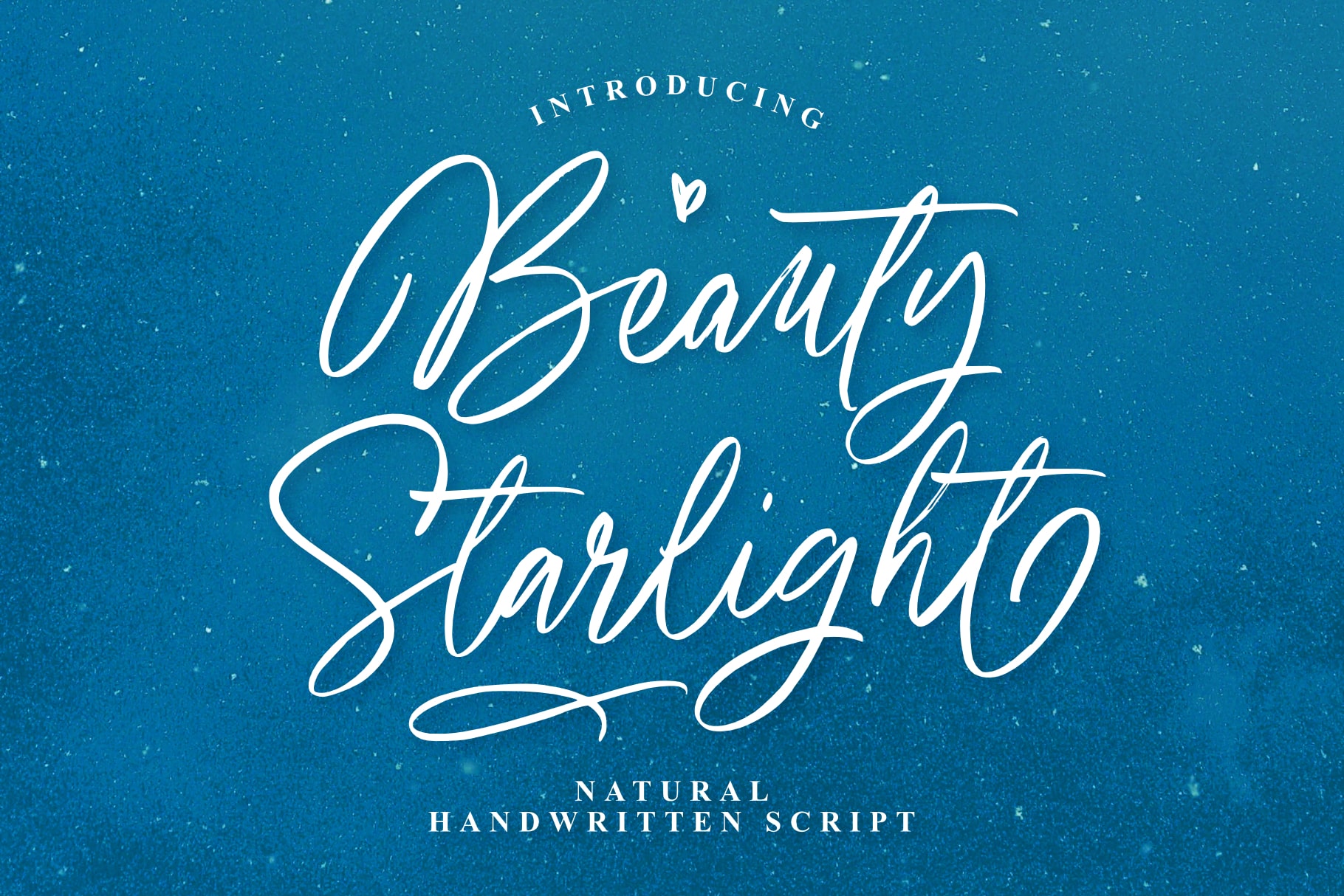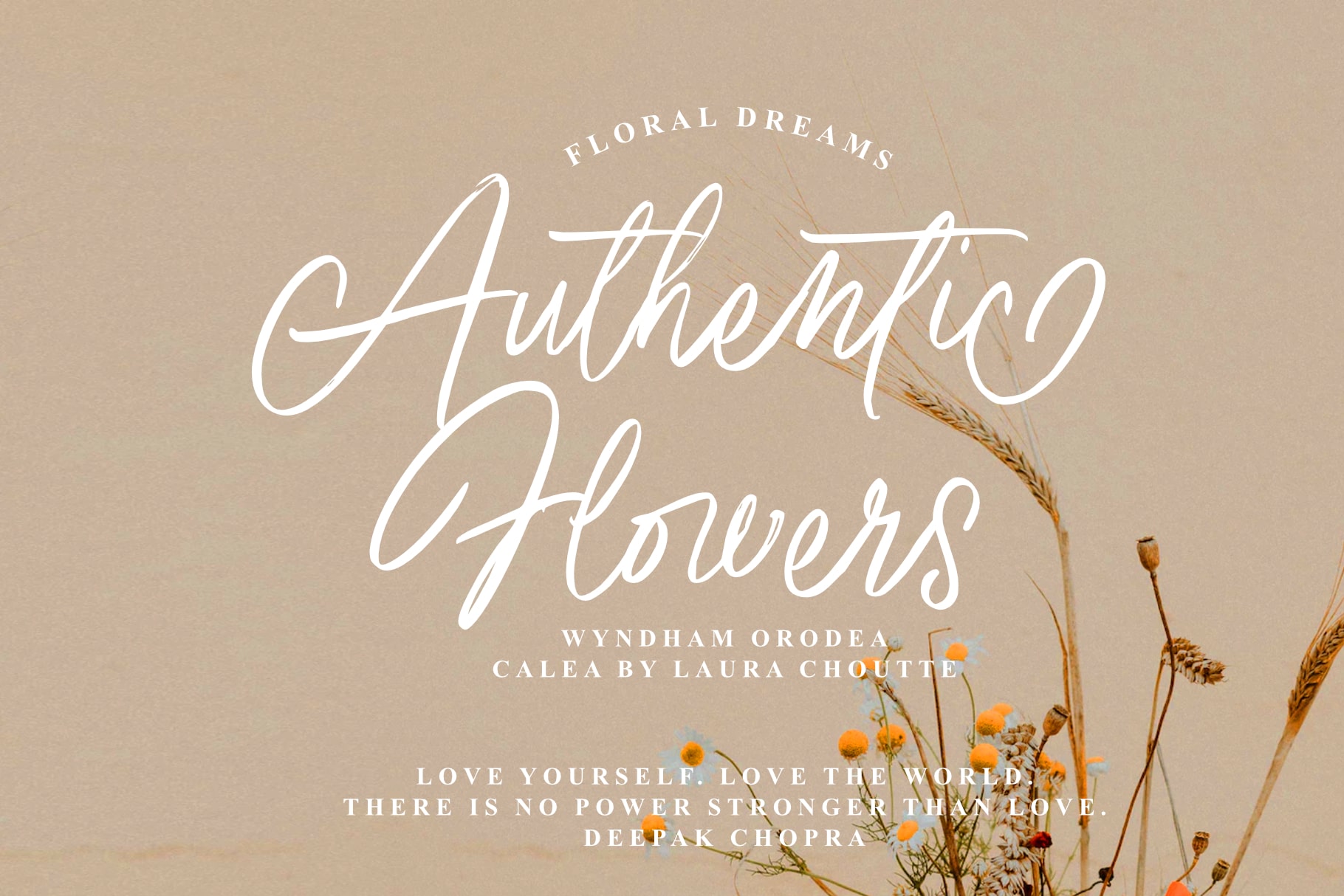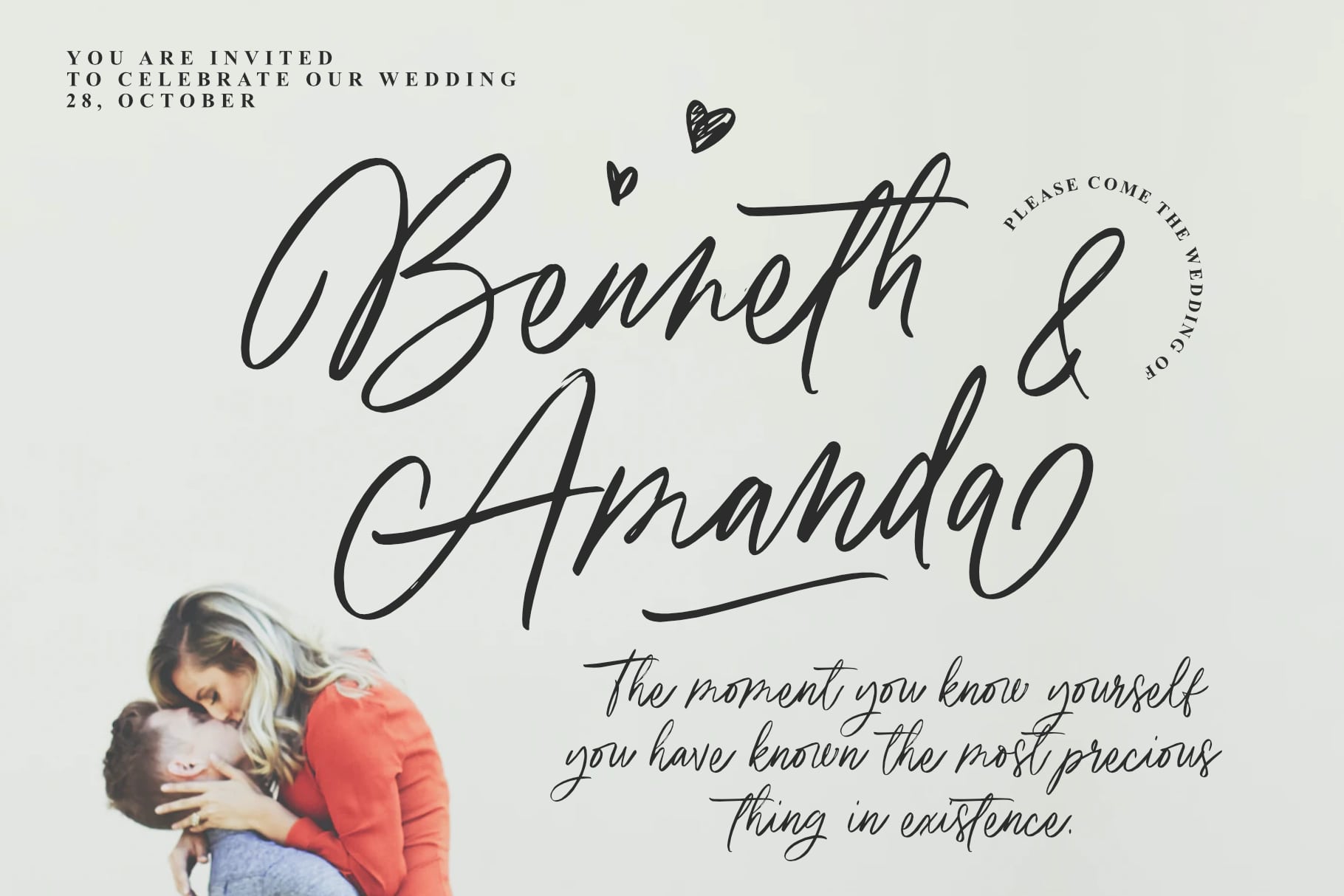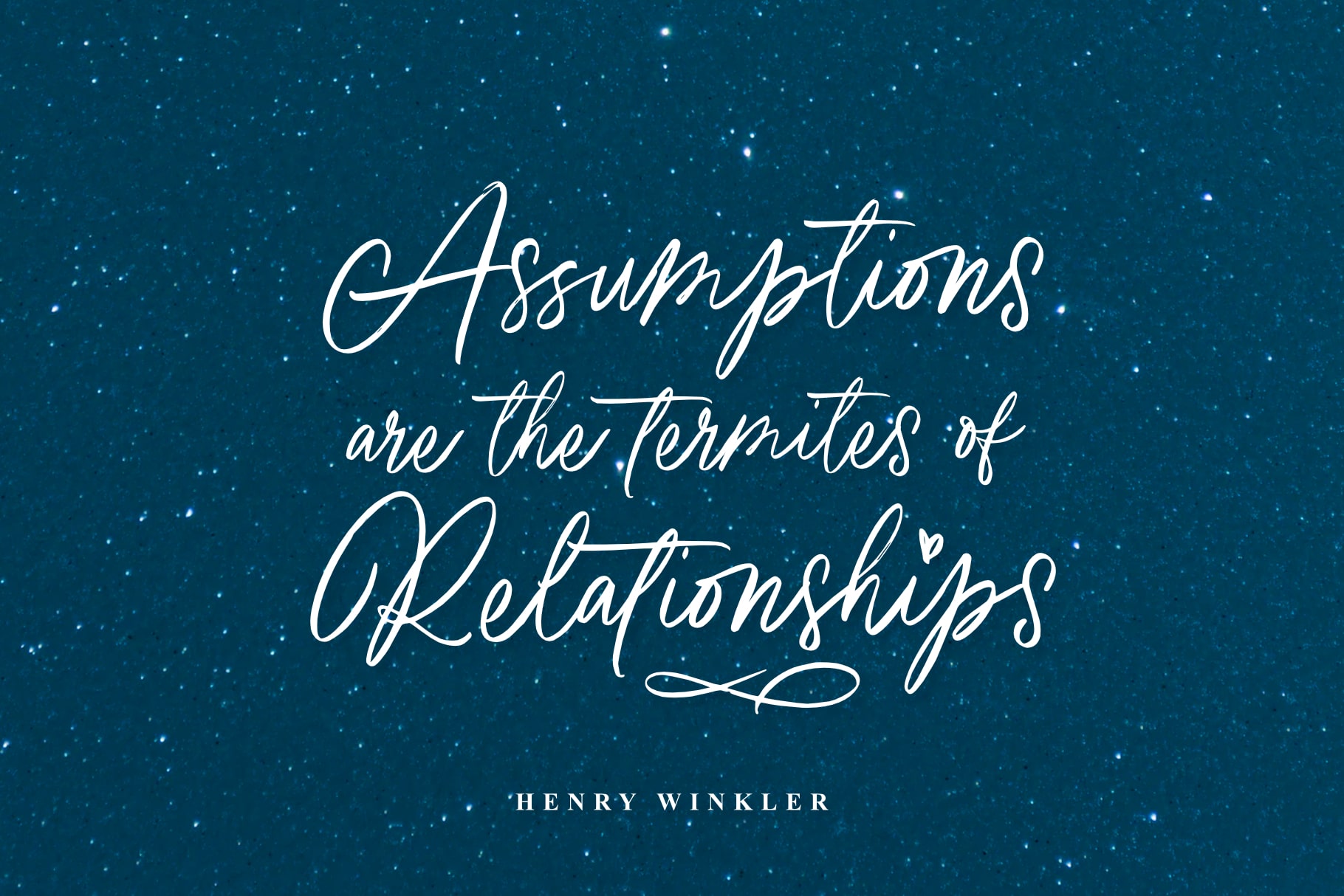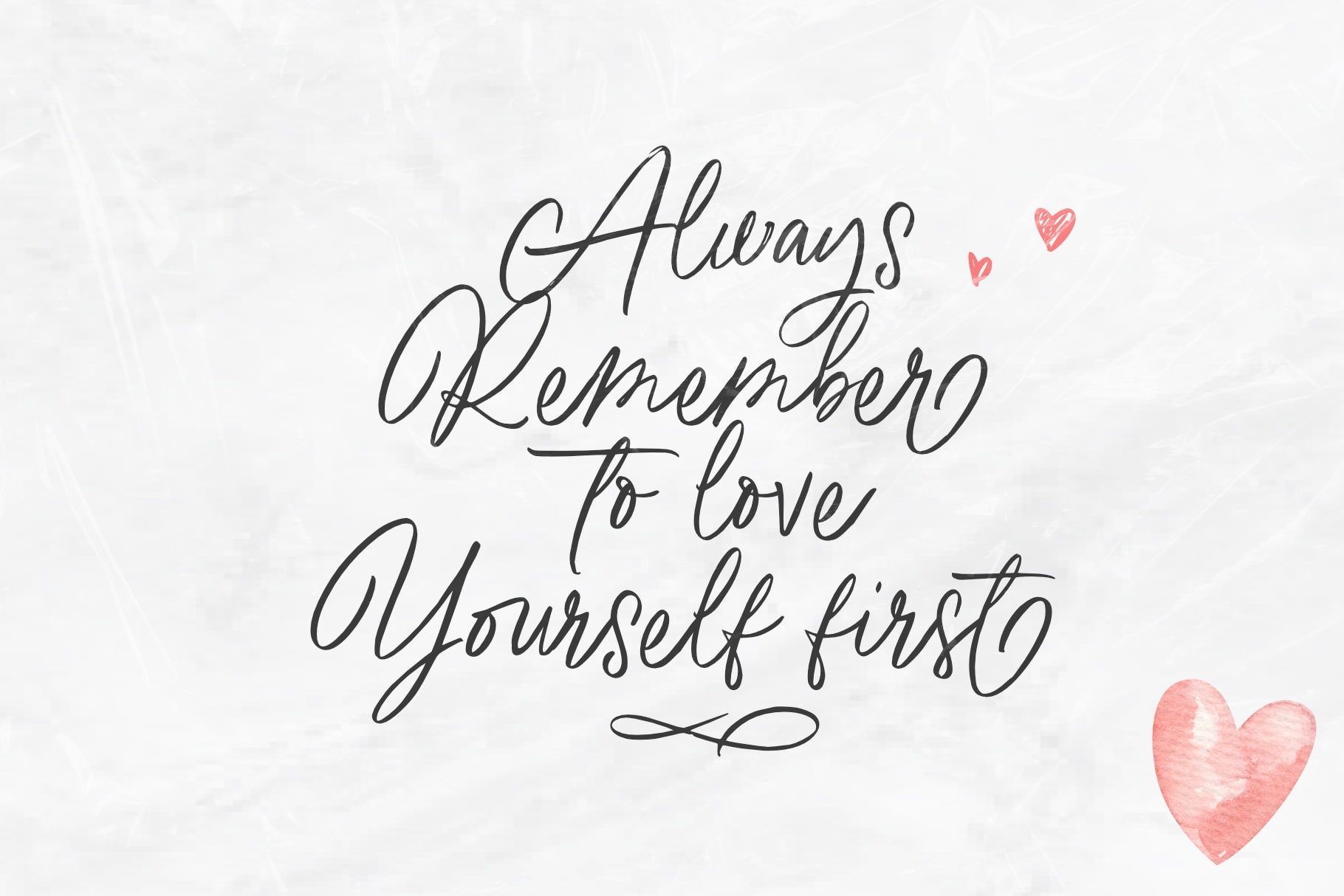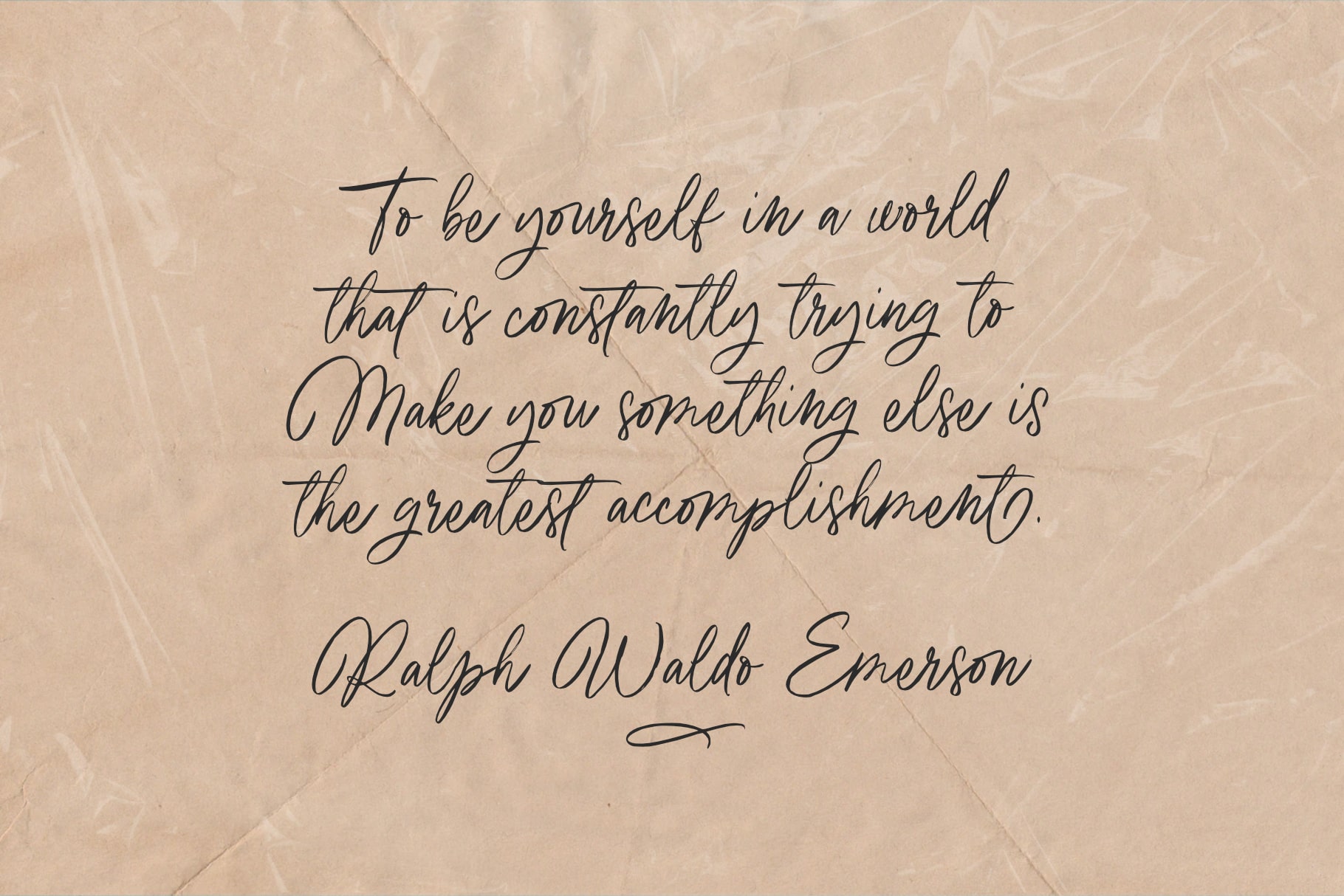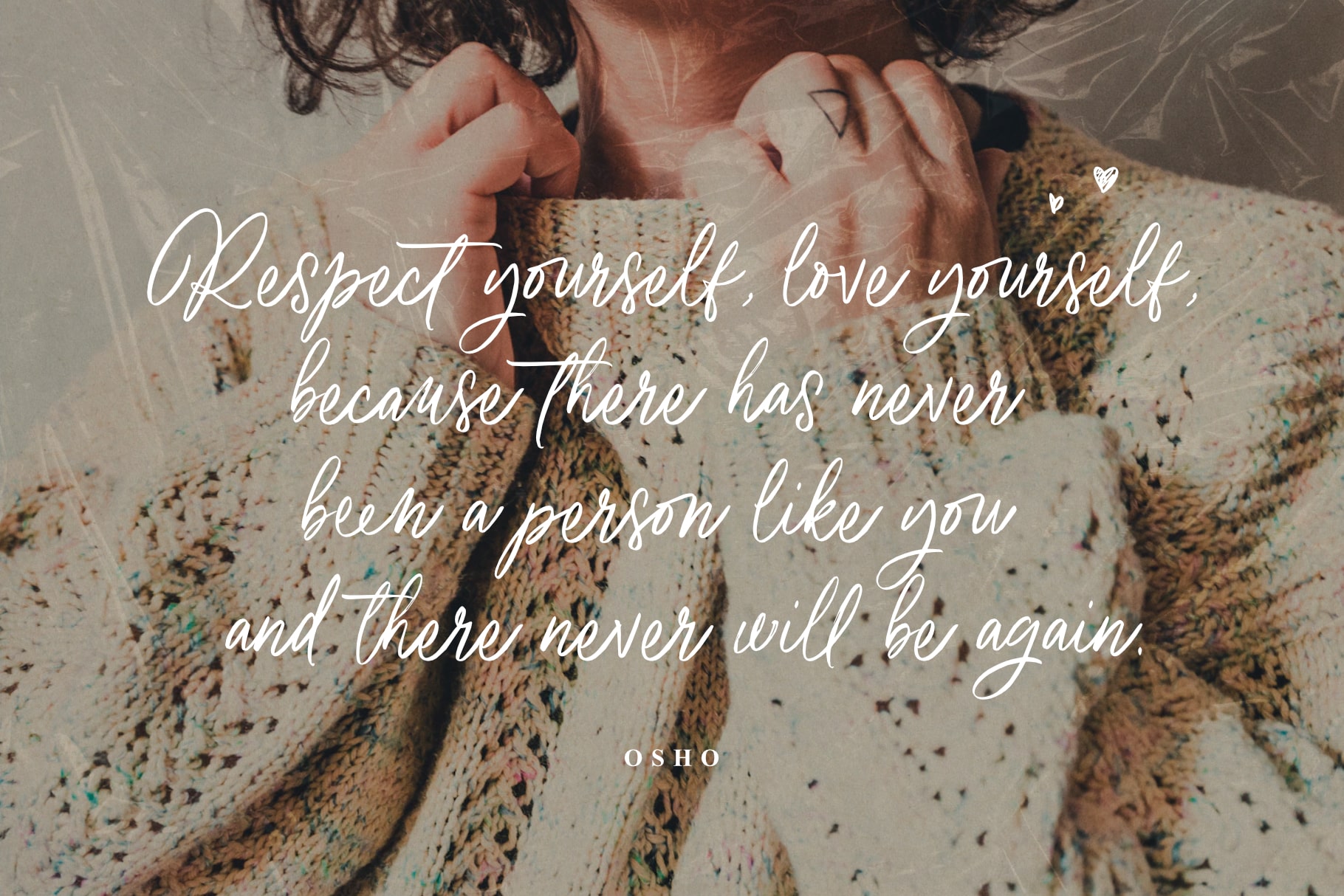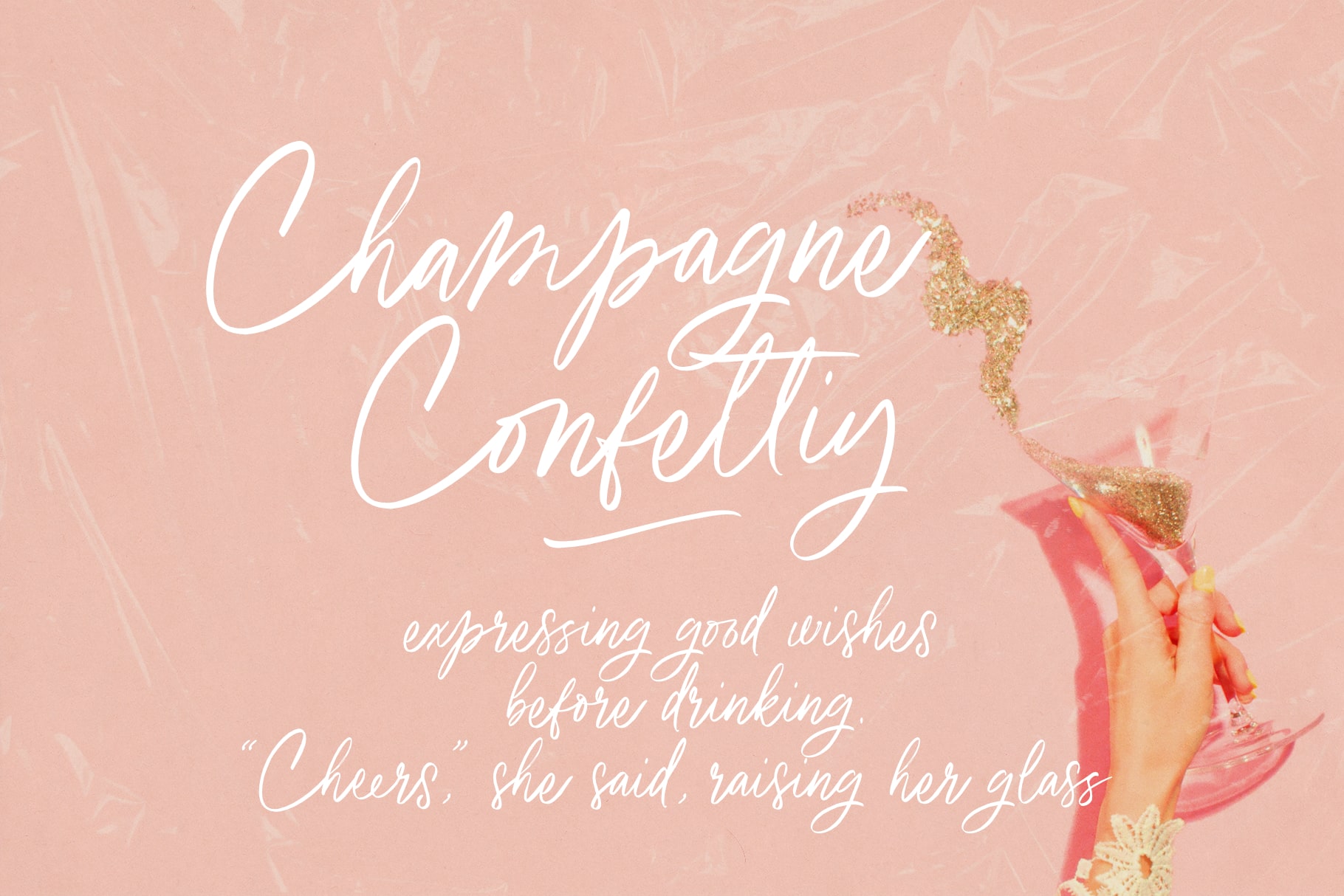
- Beauty Starlight Handwritten Script
Beauty Starlight is a mesmerizing script font that radiates elegance and grace. With its intricate and flowing letterforms, this font captures the essence of celestial beauty, making it a perfect choice for projects that demand a touch of sophistication and charm.
The delicate curves of Beauty Starlight bring a sense of refinement to your designs, making it ideal for wedding invitations, luxury branding, and any creative endeavor that seeks to convey a sense of timeless beauty. The script’s versatility allows it to seamlessly blend into various design contexts, offering a touch of glamour and individuality.
The effortless strokes of Beauty Starlight evoke a sense of handwritten artistry, providing a personalized and human touch to your projects. Whether you’re designing logos, packaging, or social media graphics, this font invites you to infuse your work with a celestial glow.
Embrace the celestial beauty of Beauty Starlight script font and watch as your designs shine with an ethereal allure. Elevate your typographic expressions with this font that blends grace with a touch of starlight magic.